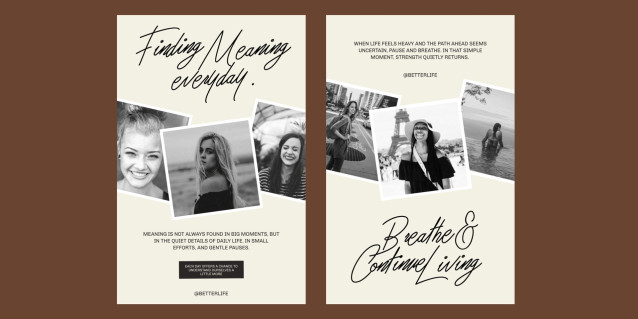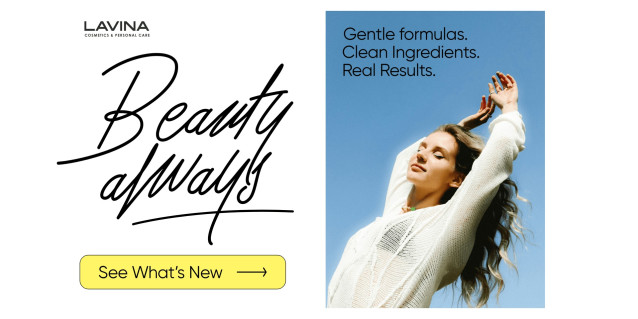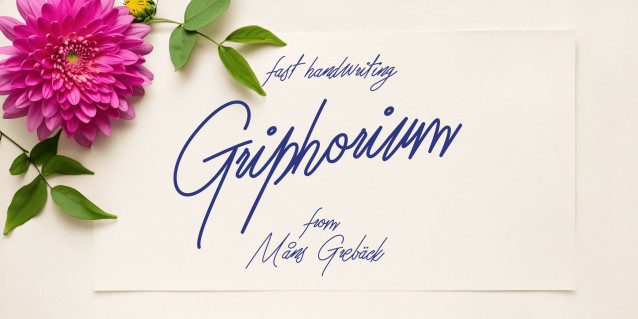
Griphorium Font
Griphorium Font is a fast handwriting script with a clear sense of movement. It feels written in one go, where the hand rarely slows down and each letter follows the next with natural momentum.
The shapes are slightly sharp and energetic, avoiding softness in favor of precision and flow. Connections are quick and confident, keeping small irregularities that make the writing feel human and unforced rather than carefully styled.
Designed by Mans Greback, Griphorium focuses on the moment of writing itself. It reflects the character of notes, names, and short lines written with intent, capturing the rhythm of handwriting that values speed, clarity, and personal expression.
The font is built with advanced OpenType functionality and guaranteed top-notch quality, containing stylistic and contextual alternates, ligatures and more automatic and manual features; all to give you full control and customizability.